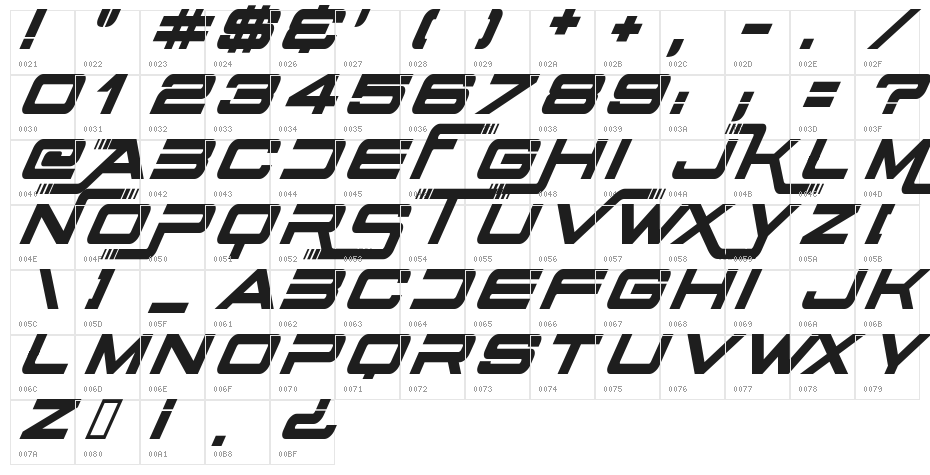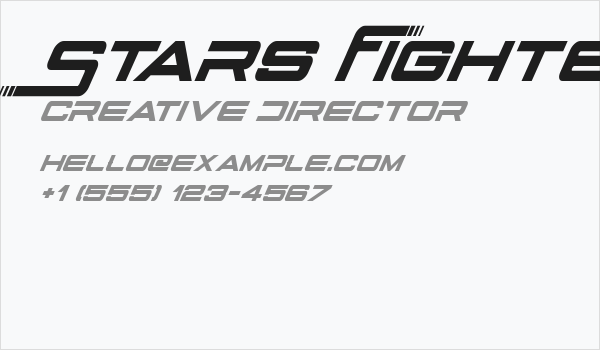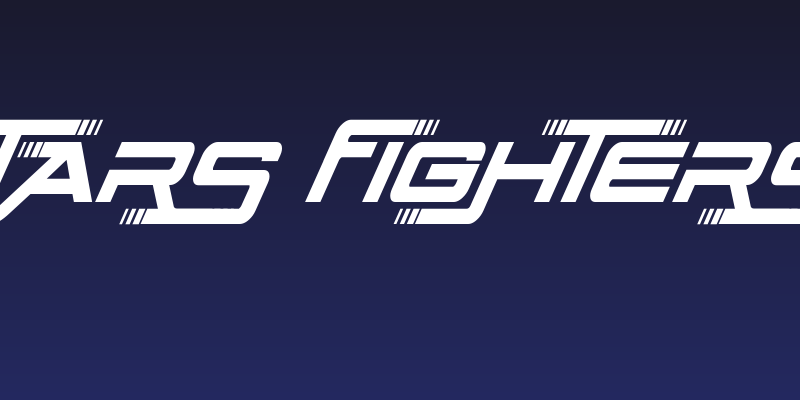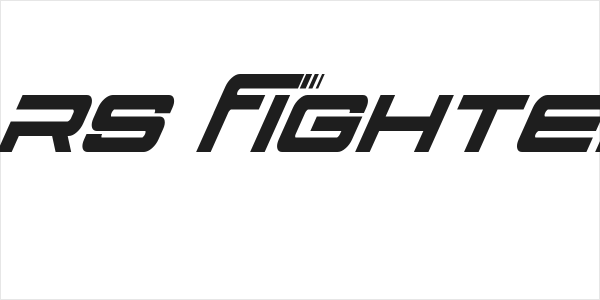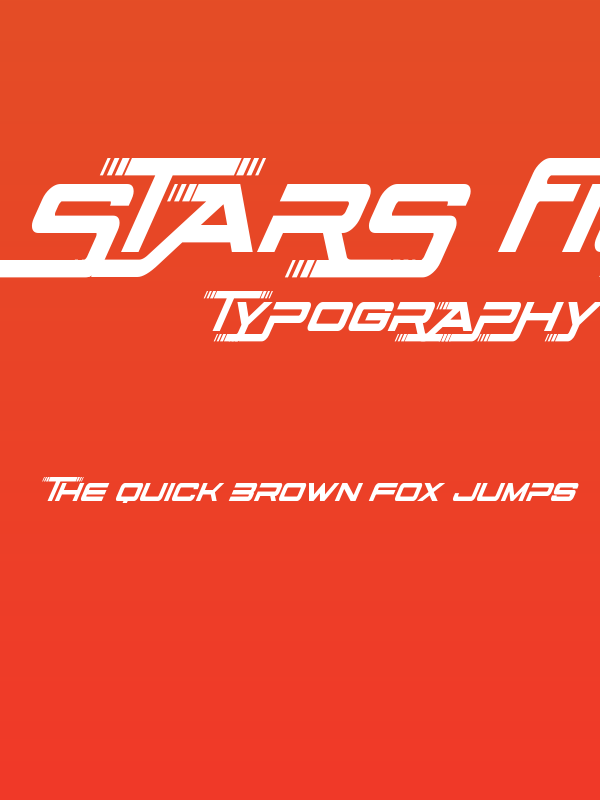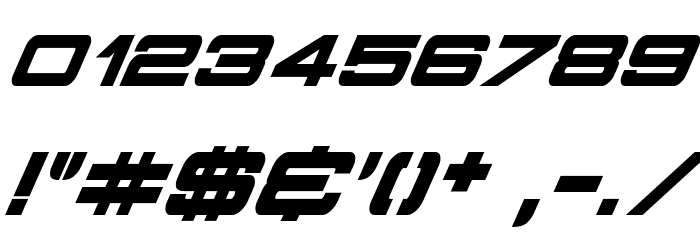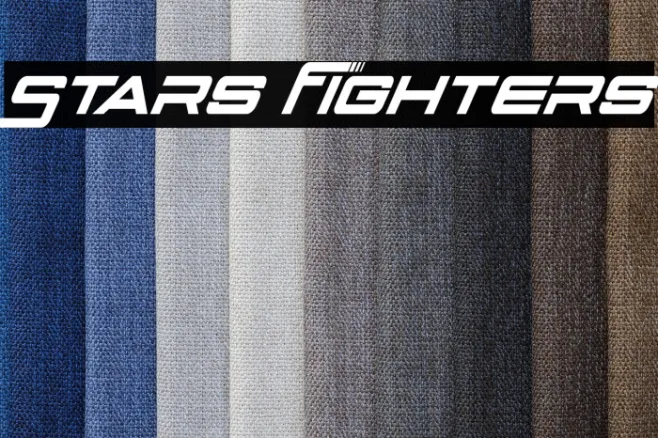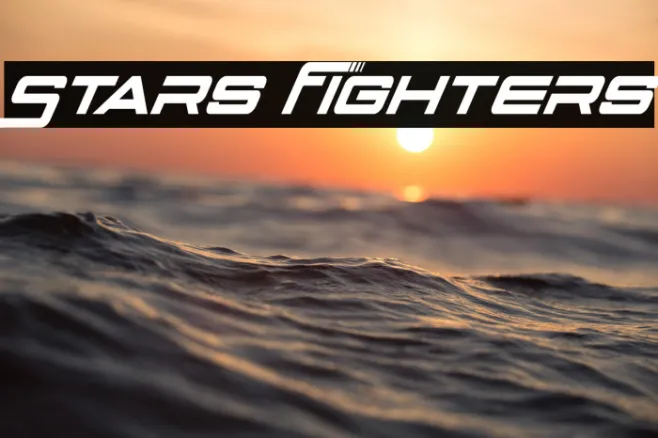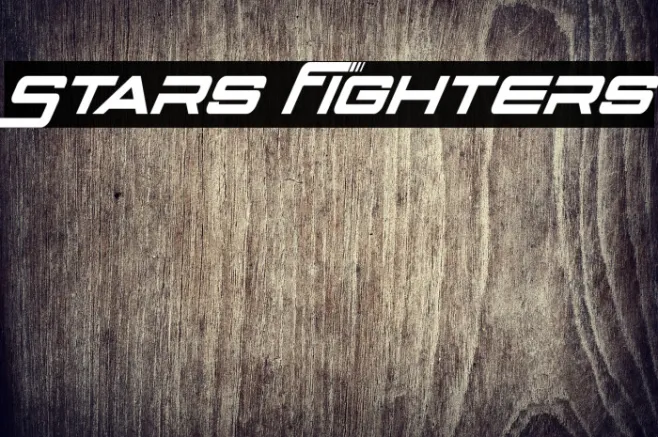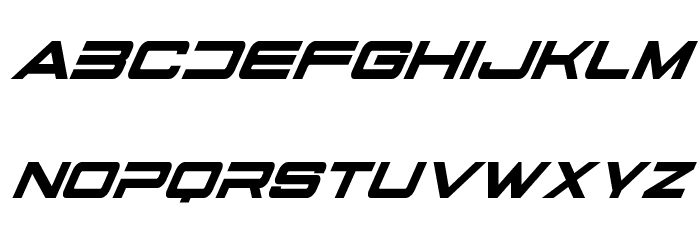
Stars Fighters Font
Stars Fighters Description
This font features a futuristic and dynamic design, characterized by sharp angles and a sense of motion. The letters are slightly italicized, giving them a forward-leaning appearance that suggests speed and agility. The strokes are bold and consistent, with a medium contrast that enhances readability while maintaining a sleek aesthetic. The inclusion of horizontal lines within certain characters adds a unique, tech-inspired element. This font is ideal for projects that require a modern and energetic feel, such as sci-fi themes, video game titles, or technology branding.
| Proposed Projects | Ideal for sci-fi themes, video game titles, technology branding, and modern posters. |